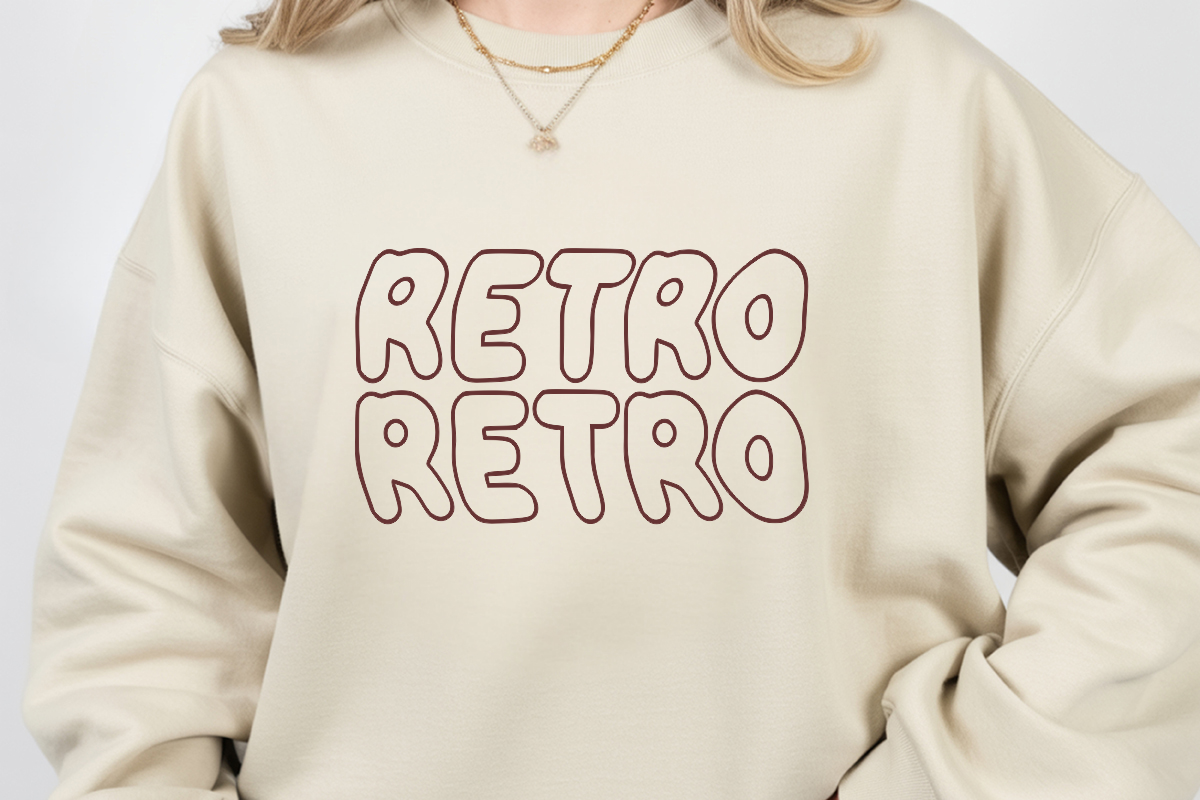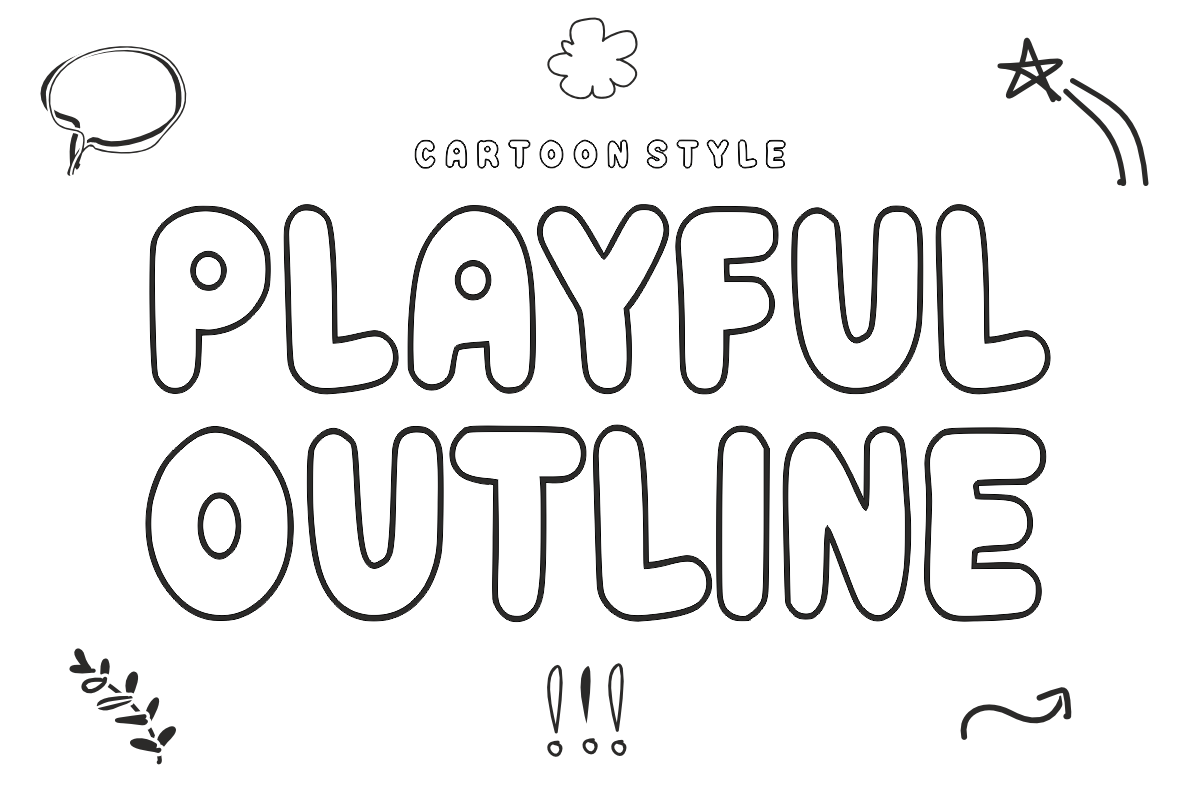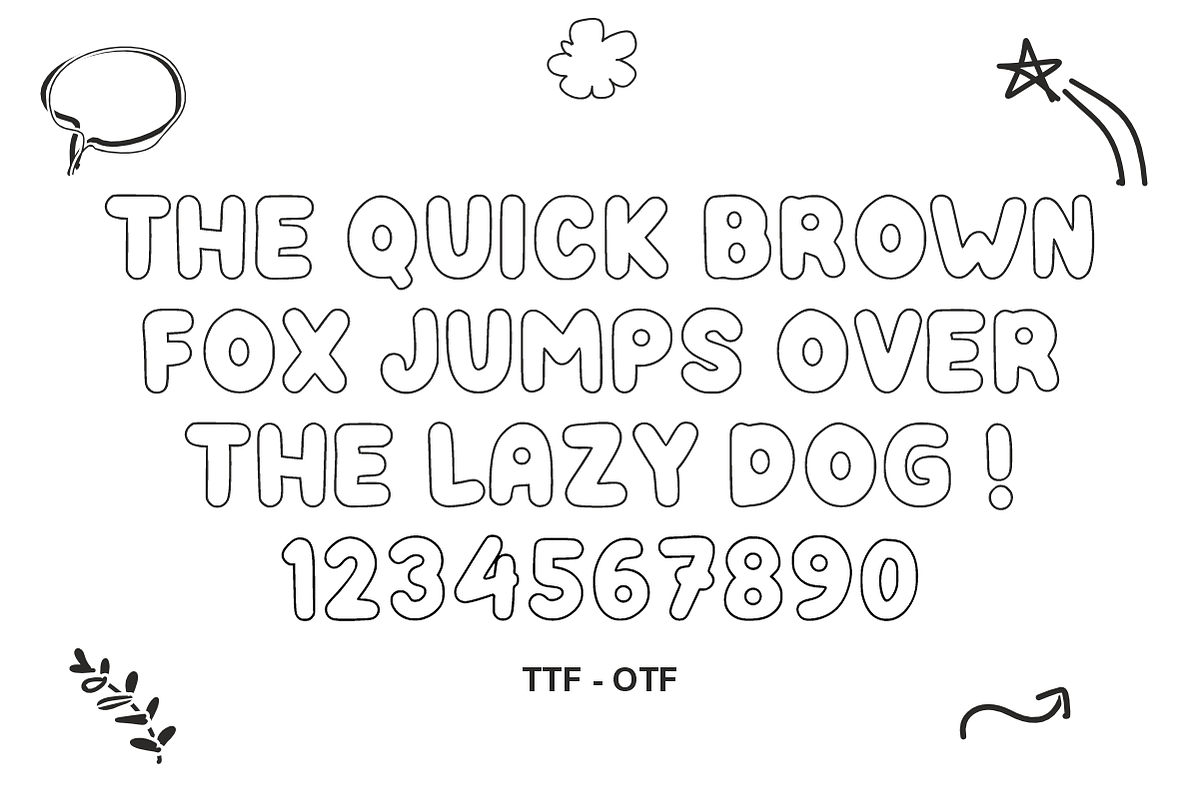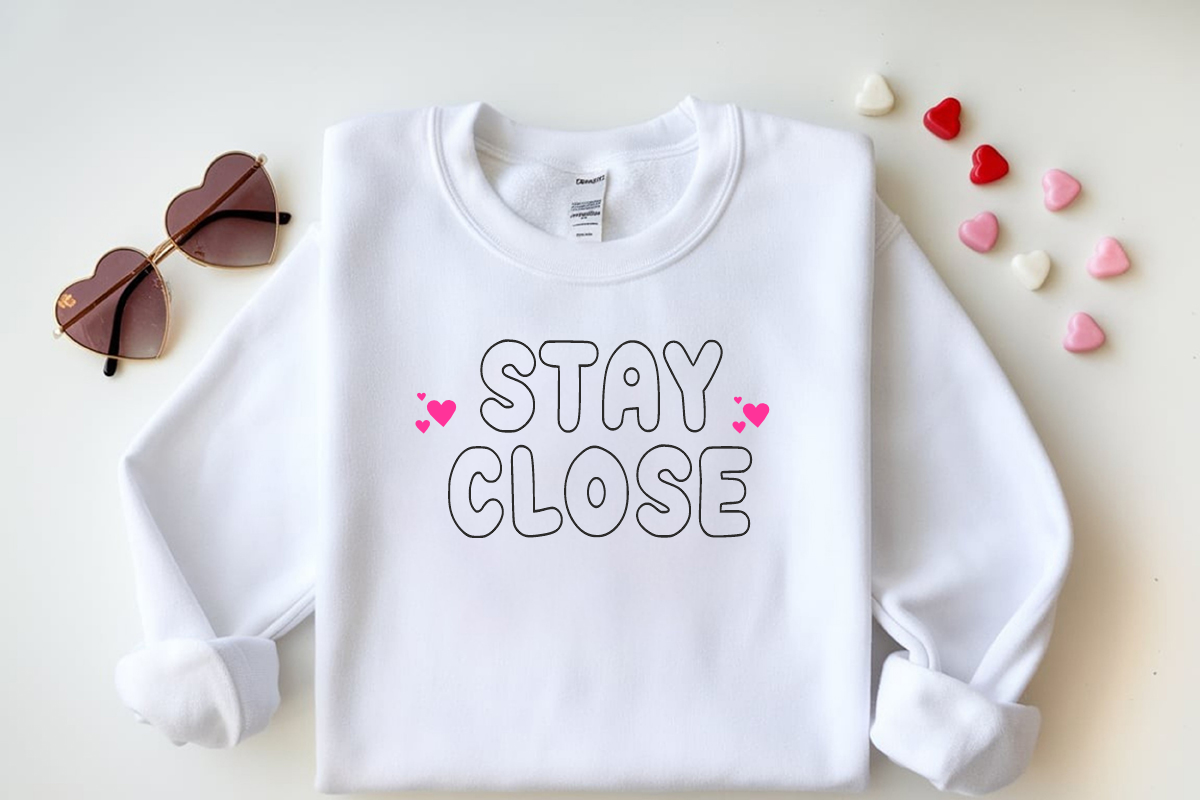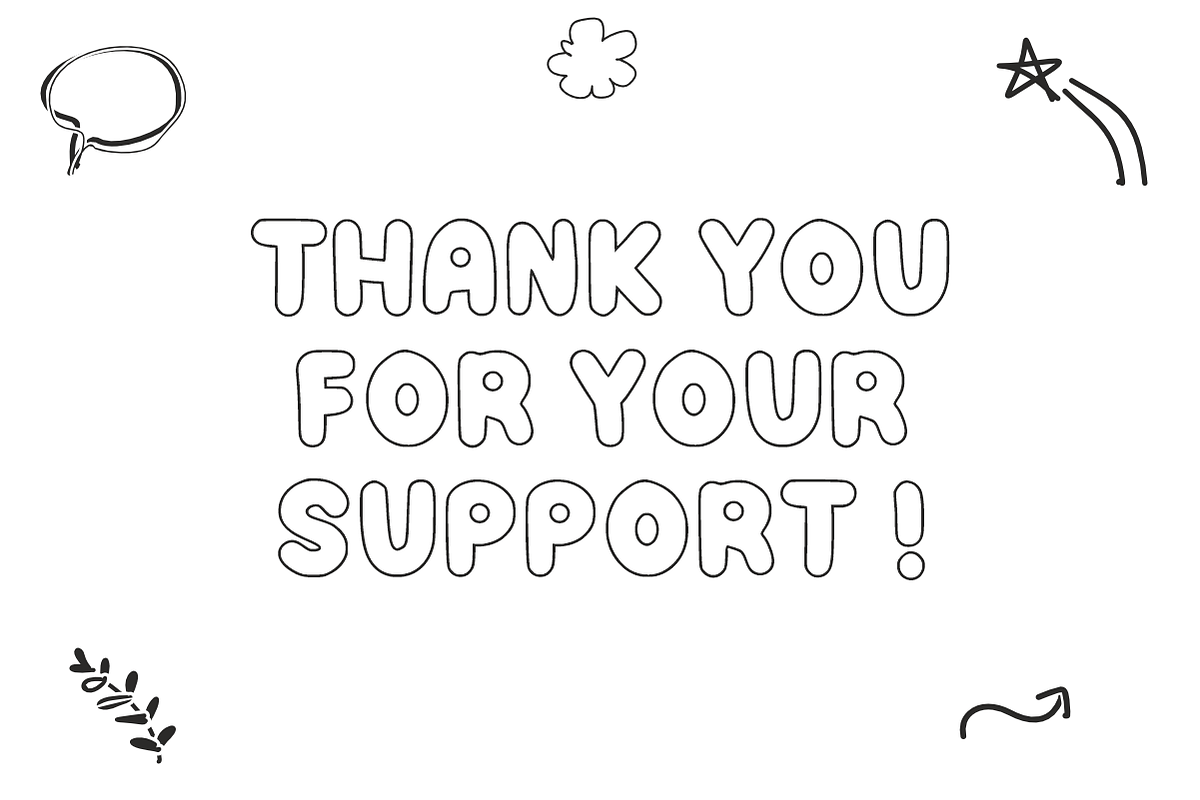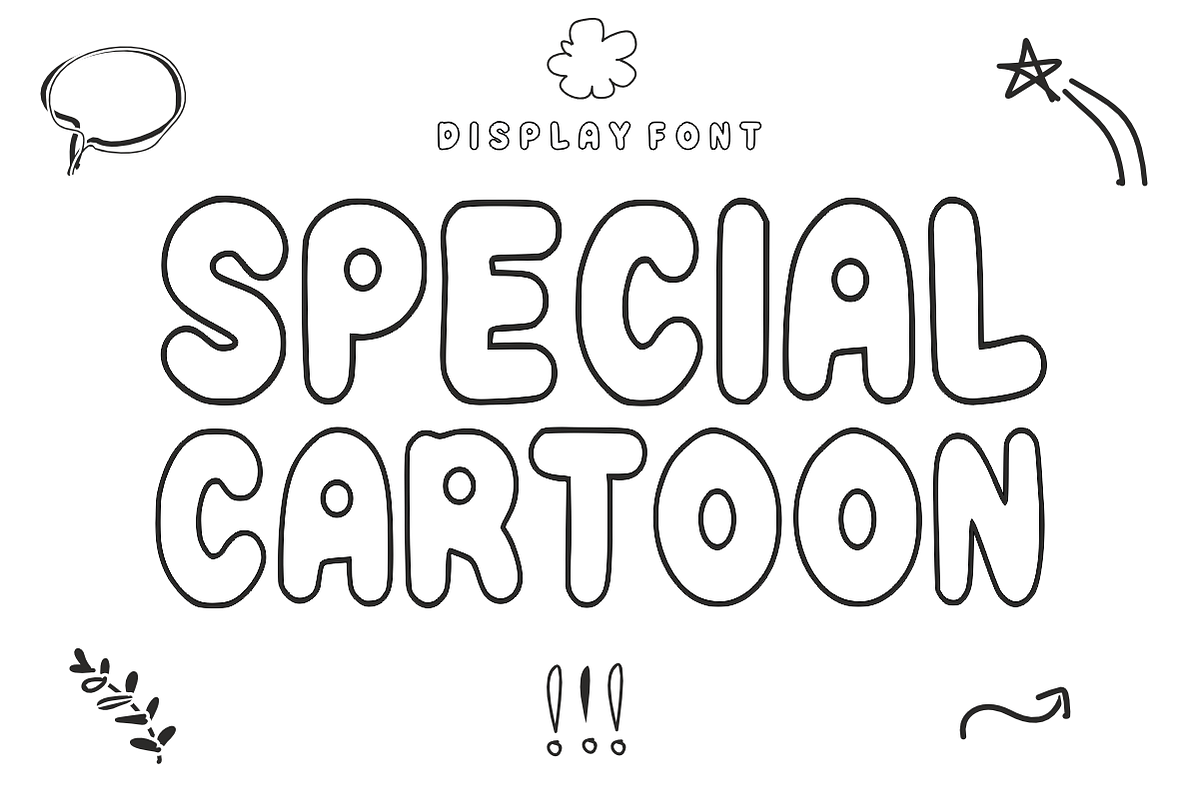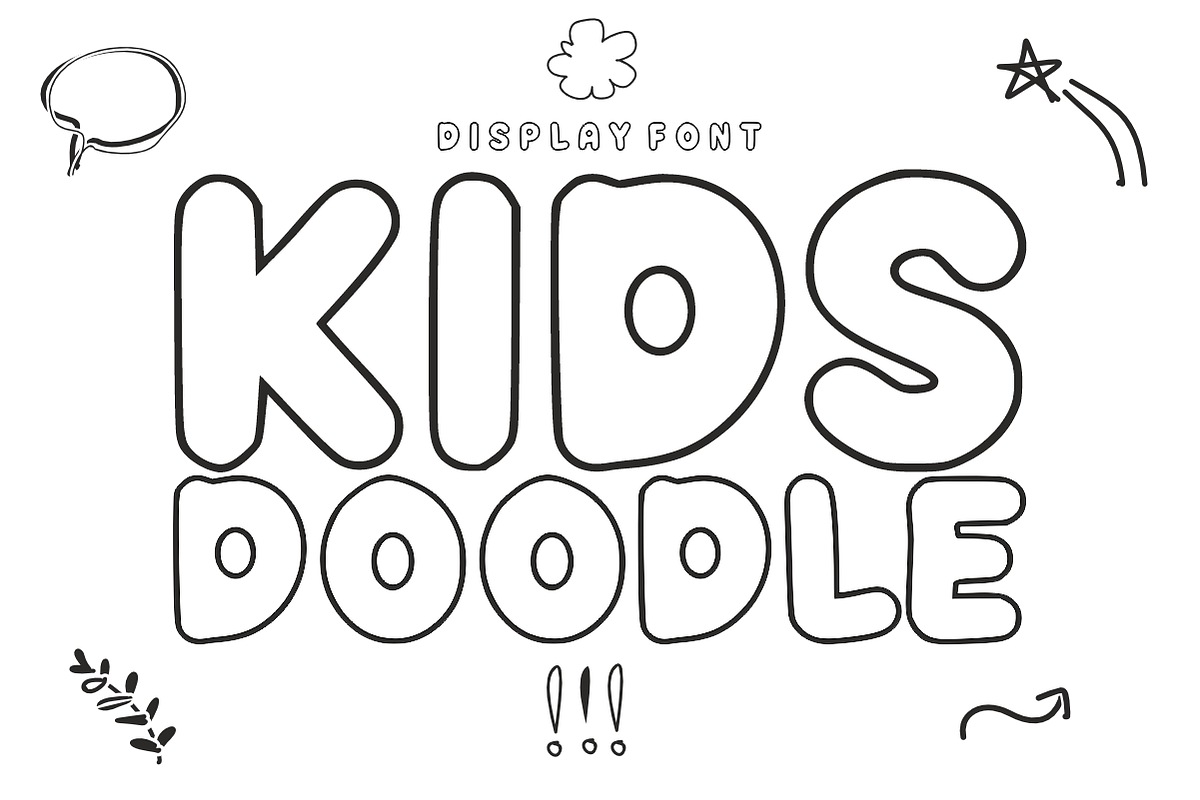
Playful Outline – Outline Font
Playful Outline – Bubbly & Creative Cartoon Outline Font 🎨✨
Add a spark of joy and endless creativity to your designs with this fun, hollow-style typeface!
Playful Outline is a vibrant, hand-drawn display font featuring a bold, rounded silhouette with a clean "outline" or "hollow" look. Its friendly and energetic vibe makes it the perfect choice for projects that need a lighthearted, approachable, and handcrafted feel. Designed specifically for maximum versatility, this font is a "must-have" for creators who want to add a touch of whimsy to their digital and physical products.
Perfect for Coloring: The hollow design makes it an ideal choice for coloring books, worksheets, and DIY activities for children.
High Legibility: Even with its bubbly and decorative style, each character is carefully crafted to remain clear and easy to read.
Craft-Ready: The clean outlines are perfect for cutting machines like Cricut and Silhouette, making it a favorite for crafters.
Instant Fun Factor: Instantly elevates any design into a more playful, youthful, and energetic piece of art.
🖍️ Coloring Books & Kids’ Activities: Create engaging educational resources and fun worksheets.
✂️ DIY Crafts & Cricut Projects: Design stickers, vinyl decals, and custom iron-on patches.
🎬 YouTube & Social Media: Perfect for high-energy thumbnails, Instagram quotes, and playful captions.
🎂 Party Invitations & Decorations: Stand out with unique headers for birthdays and school events.
🛍️ Merchandise & Apparel: Ideal for kids' t-shirts, tote bags, and playful branding labels.
Uppercase Letters (A-Z): Expressive, bold, and bubbly characters.